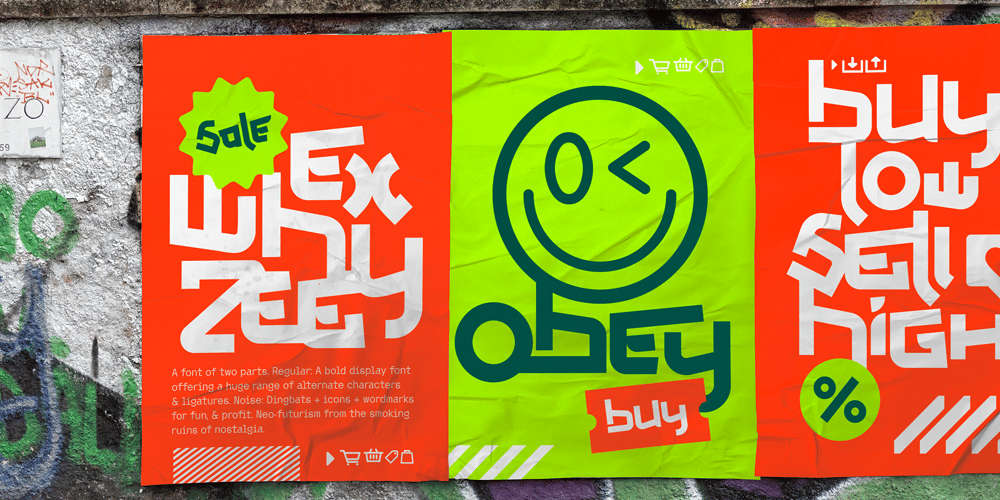
Ex Why Zee Font Family was designed by Brent Airey and published by Machine Cult. Ex Why Zee contains 2 styles and family package options. A font of two parts. ‘Regular’, a bold display font offering a huge range of alternate characters & ligatures. ‘Noise’, dingbats + icons + wordmarks for fun & profit. Neo-futurism from the smoking ruins of nostalgia.